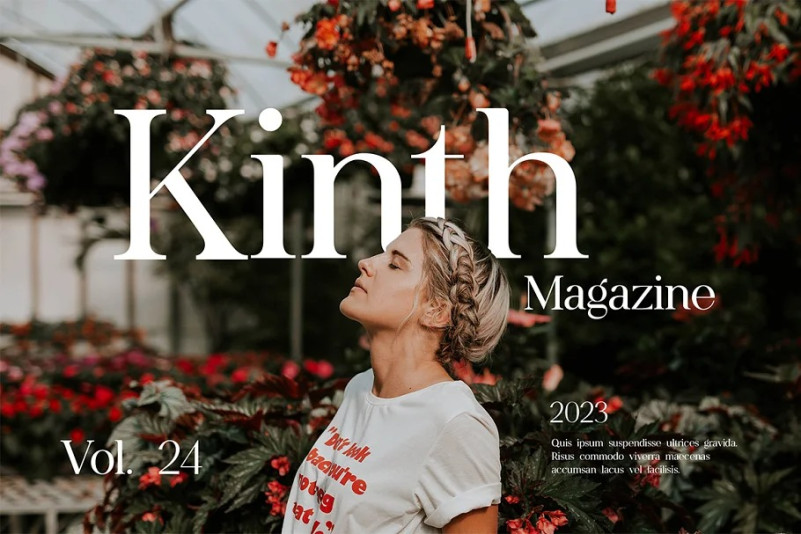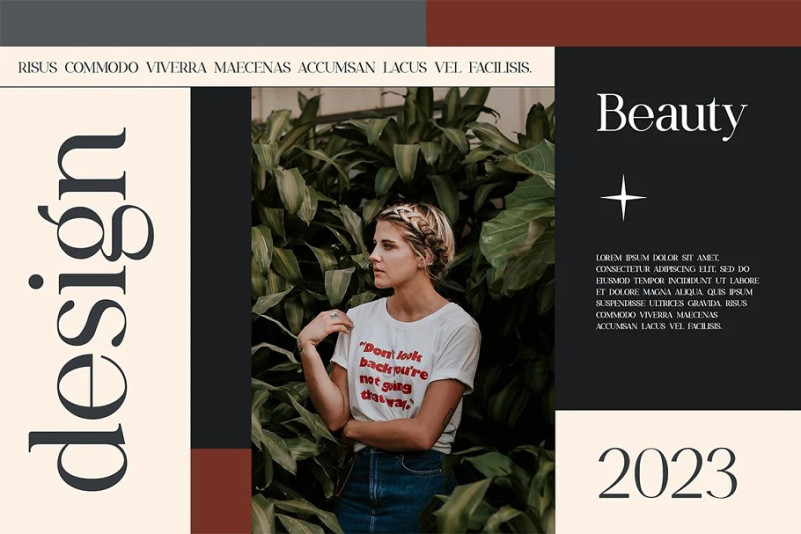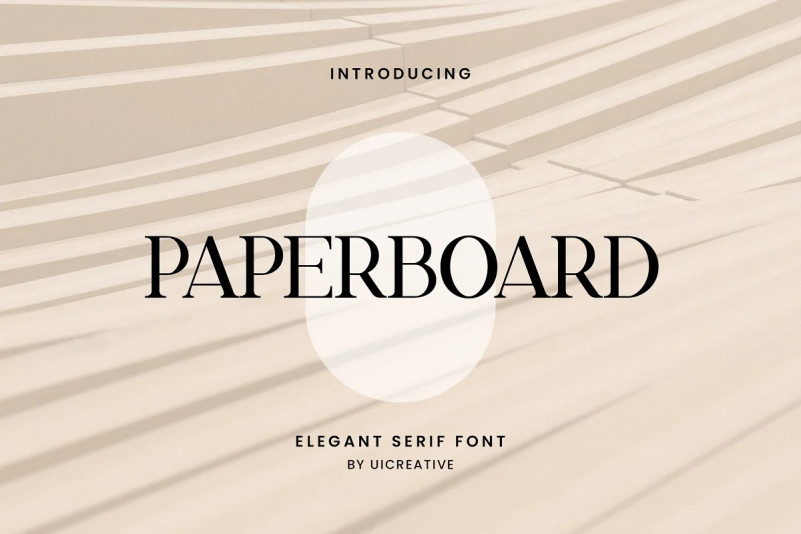
Paperboard Font
Paperboard Font – Elegant Serif Font. Modern Serif font that feels beautiful classy, elegant, and modern. This font is ideally suited for a wide variety of projects, such as signature, stationery, logo, wedding, typography quotes, magazine or book covers, website headers, clothing, branding, packaging design, and more. Also, fashion-related branding or editorial design displays both masculine and feminine qualities.